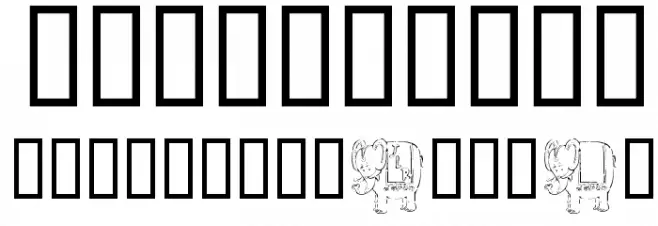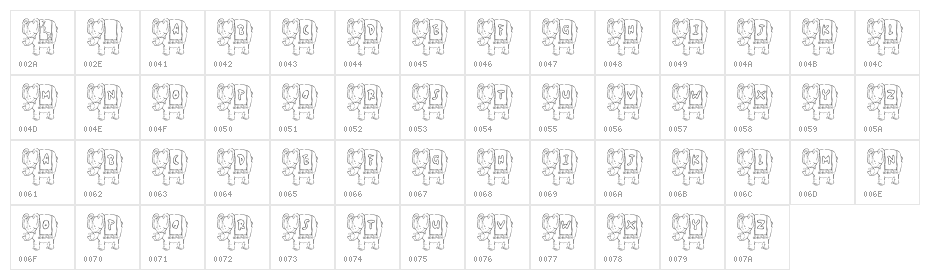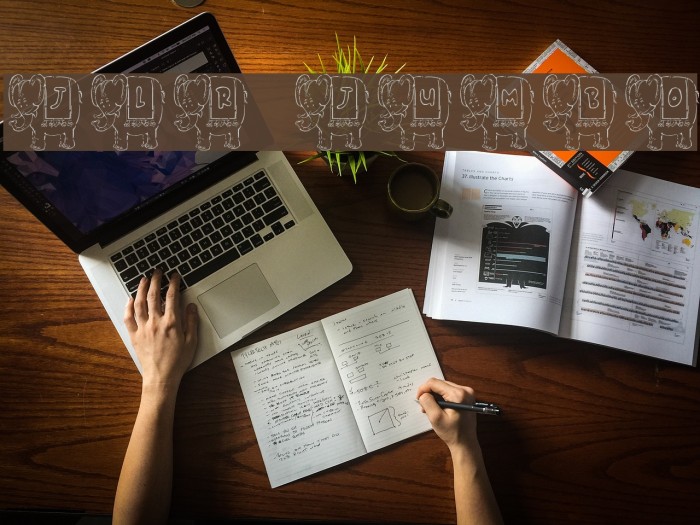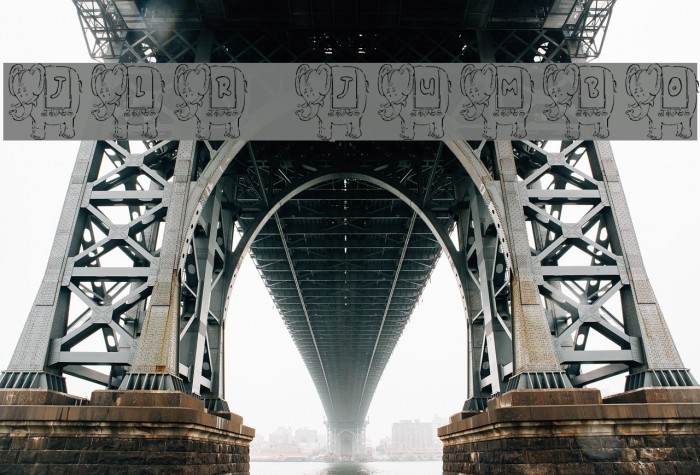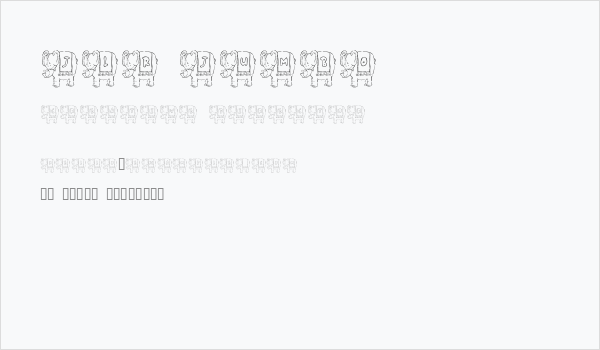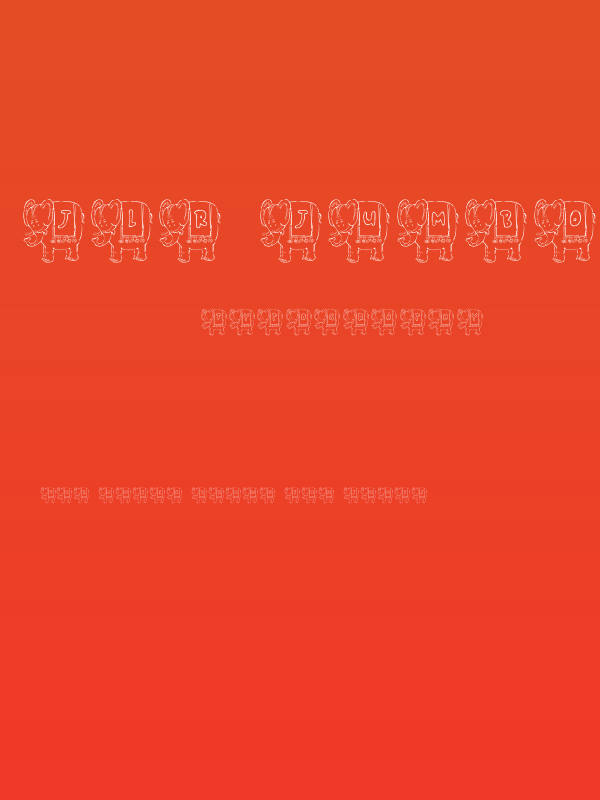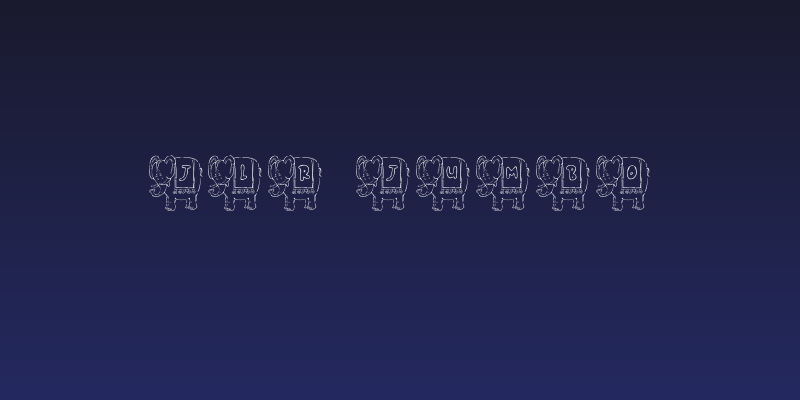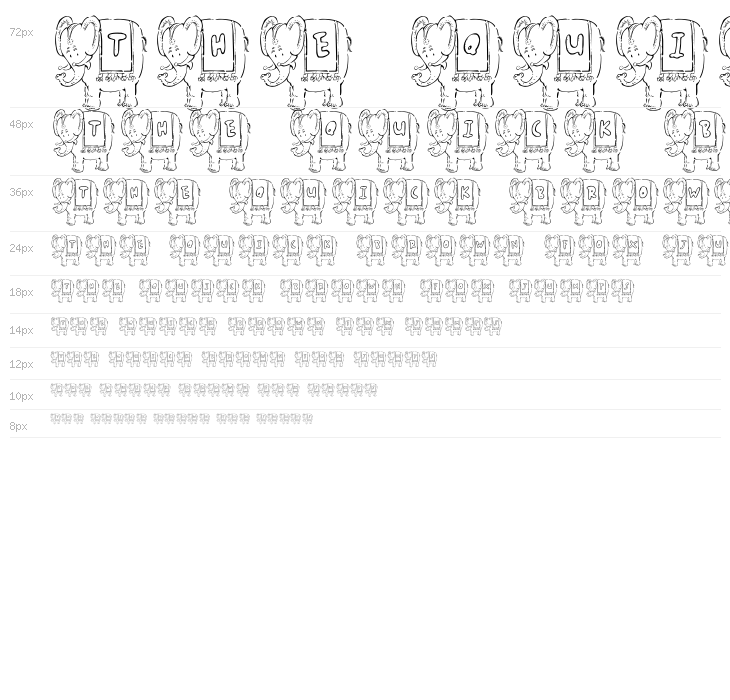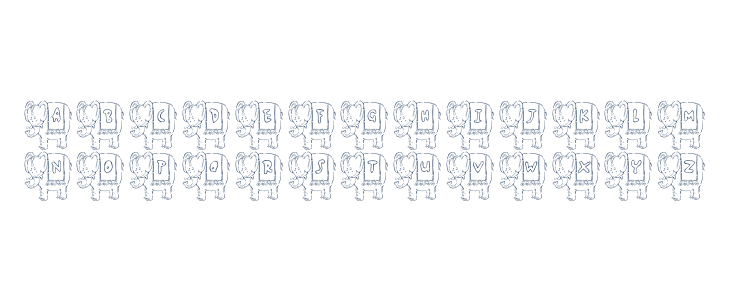
JLR Jumbo Font
JLR Jumbo Description
This whimsical and playful font features each letter encased within a cartoonish elephant design. The elephants are drawn with a light, sketch-like quality, giving the font a fun and informal appearance. The letters themselves are bold and clear, making them easily readable despite the decorative elements. This font is ideal for children's projects or any design that requires a touch of humor and creativity. The overall style is unique and engaging, capturing attention with its charming and imaginative presentation.